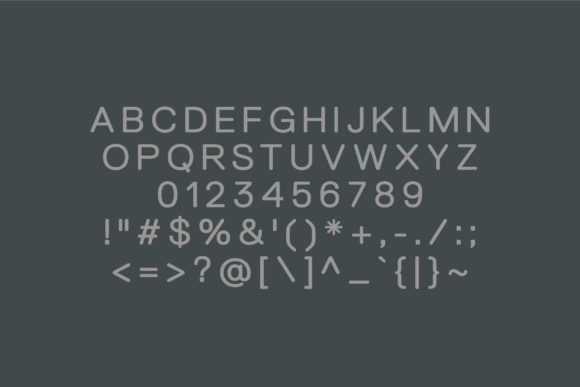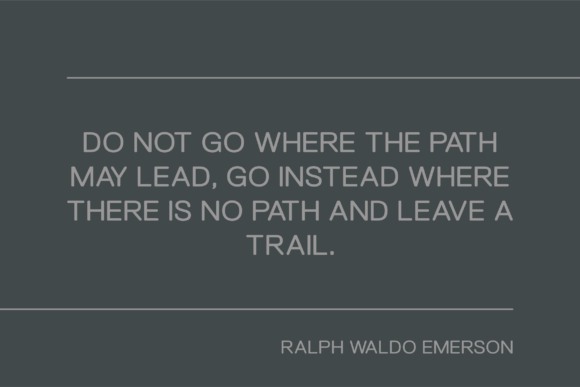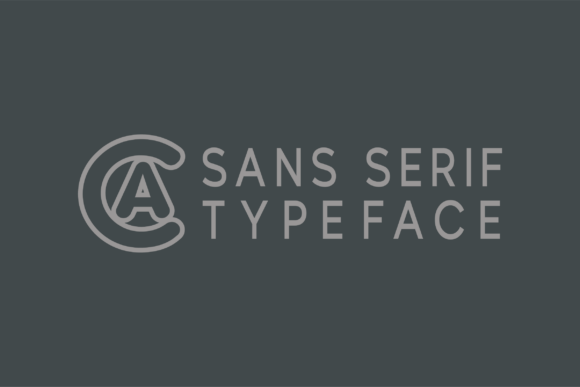
Introducing Evanderis Font: Elevate Your Designs with Modern Elegance
In the world of typography, a font can make or break a design. It’s the foundation upon which creativity is built, and the right choice can elevate a project from ordinary to extraordinary. For designers and crafters seeking a modern, classy sans serif typeface, look no further than Evanderis Font. This versatile and stylish font is designed to meet the needs of a wide range of projects, from logos and weddings to invitations, quotes, advertisements, and more.
What is Evanderis Font?
Evanderis is a contemporary sans serif typeface that exudes elegance and sophistication. It features a comprehensive character set, including upper case characters, numbers 0-9, and a range of punctuation and symbols. This extensive character set ensures that Evanderis is equipped to handle a variety of design requirements, making it an excellent choice for both print and digital applications.
Key Features of Evanderis Font
- Upper Case Characters: Evanderis includes a full set of upper case characters, perfect for headings, titles, and emphasis.
- Numbers 0-9: A complete set of numerals ensures that your designs are precise and professional.
- Punctuation and Symbols: A range of punctuation marks and symbols provides the flexibility to create complex and detailed designs.
- Sans Serif Design: The clean, modern lines of Evanderis make it ideal for designs that require a sleek, contemporary look.
One of the standout features of Evanderis Font is its versatility. Whether you’re working on a logo, a wedding invitation, a magazine spread, or an advertisement, Evanderis adapts seamlessly to any design need. Its classy appearance makes it suitable for:
- Logos: Create memorable and impactful logos that stand out.
- Weddings and Invitations: Add a touch of elegance to your wedding and event invitations.
- Quotes and Typography: Use Evanderis to highlight quotes, phrases, and other typographic elements.
- Advertisements: Elevate your ads with a professional and modern typeface.
- Print and Magazines: Perfect for use in magazines, brochures, and other print materials.
Why Choose Evanderis Font?
With so many fonts available, why choose Evanderis? Here are a few compelling reasons:
- Modern Aesthetic: Evanderis offers a fresh, modern look that’s sure to impress.
- Ease of Use: With its comprehensive character set, Evanderis is easy to use and versatile.
- High-Quality Design: Crafted with attention to detail, Evanderis ensures high-quality typography for your designs.
- Wide Application: Suitable for a wide range of projects, from digital to print.
Evanderis Font is a powerful tool for designers and crafters looking to add a modern, classy touch to their projects. Its comprehensive character set, versatile application, and stylish design make it an excellent choice for a variety of design needs. Whether you’re creating a logo, an invitation, or an advertisement, Evanderis is sure to elevate your designs to new heights. Explore the possibilities with Evanderis Font today and discover how it can transform your creative projects.